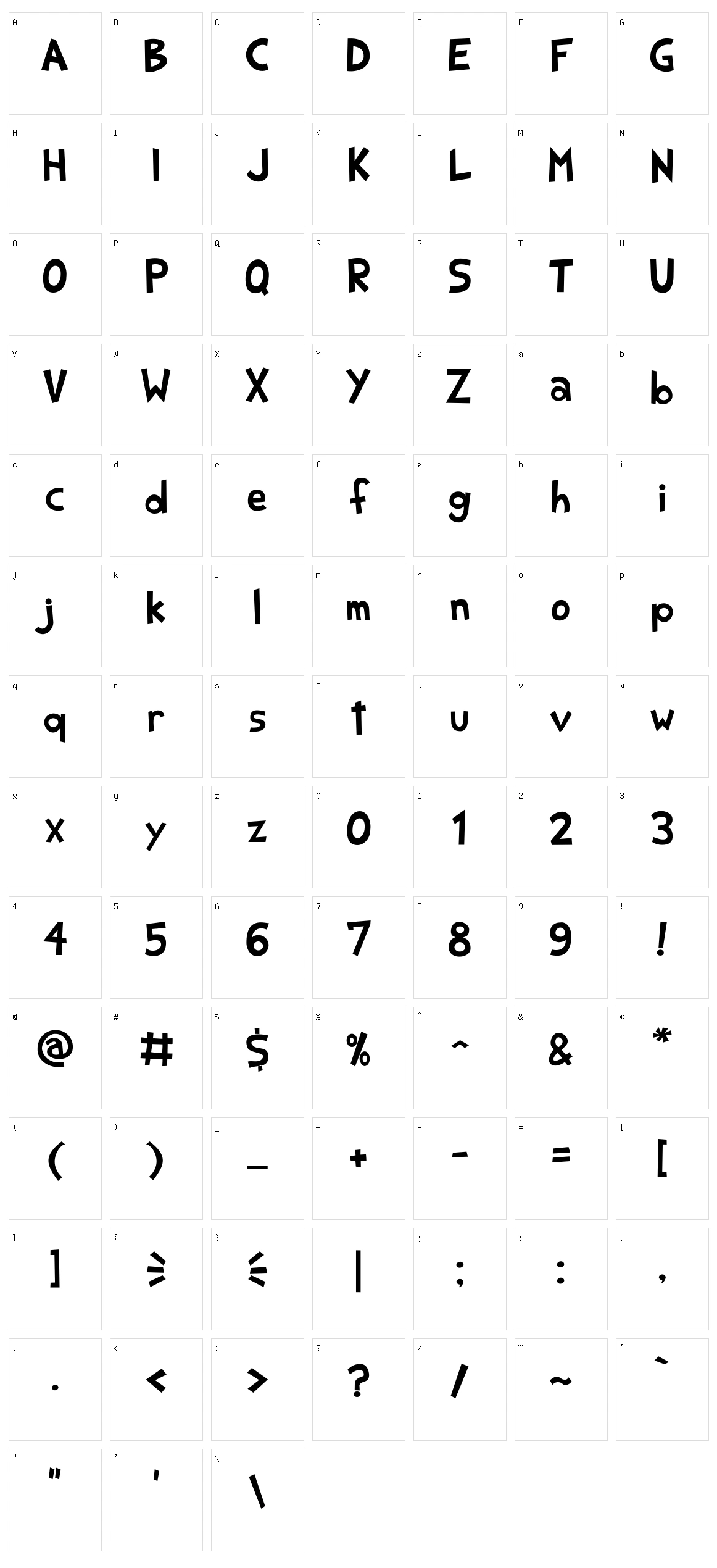
The free font Shark Random Funnyness 2 is carefully designed by Aryel Filipe, showcasing a thoughtful balance of creativity and usability and falls under the Cartoon font style. When you download the ZIP file, it contains only 14.17 KB of font files, making it lightweight and quick to download. Please review the license details below to understand permitted usage and distribution rights. If license information is not available, we recommend using this font for personal projects only or contacting the author directly for commercial usage permissions.